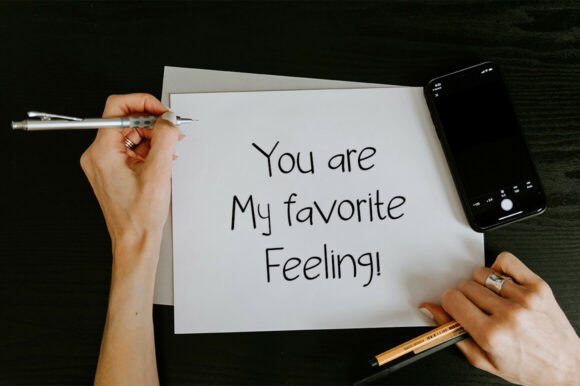
The Elegance of Gentle Bloom Font: A Designer’s Delight
I still remember the design project that led me to discover the Gentle Bloom font. I was working on a luxury skincare brand’s branding, and I needed a typeface that exuded elegance and sophistication. After hours of searching, I stumbled upon Gentle Bloom, and it was love at first sight! ✨ The font’s thin-line handwritten sans-serif design radiates quiet beauty, making it perfect for high-end branding, wedding invitations, and delicate poetry prints.
- ✨ Elegant and sophisticated design: Gentle Bloom’s airy structure and gentle curves make it a stunning addition to any layout.
- ✅ Versatile: This font works beautifully in various design contexts, from logos and branding to social media graphics and print materials.
- 🌿 Nature-inspired: The font’s organic feel makes it perfect for designs related to wellness, skincare, and eco-friendly products.
While Gentle Bloom is an exceptional font, there are a few things to keep in mind: 🤔
- ⚠️ Legibility at small sizes: Due to its thin lines, Gentle Bloom may not be the best choice for body text or small font sizes.
- ⚠️ Limited bold options: The font’s delicate nature means it may not be suitable for designs requiring bold or heavy typography.
The Story Behind Gentle Bloom
Gentle Bloom was designed with the intention of capturing the essence of quiet beauty and elegance. The font’s creator aimed to craft a typeface that would evoke a sense of refinement and sophistication, making it perfect for designs where luxury and poise are paramount.
Q: What type of projects is Gentle Bloom best suited for?
A: Gentle Bloom is ideal for high-end branding, luxury weddings, skincare and wellness products, and delicate poetry prints.
Q: How do I ensure Gentle Bloom looks its best in print?
A: For optimal results, print Gentle Bloom on high-quality textured paper, allowing the delicate strokes to shine.